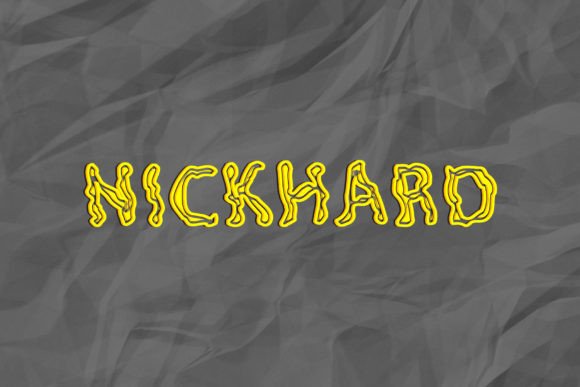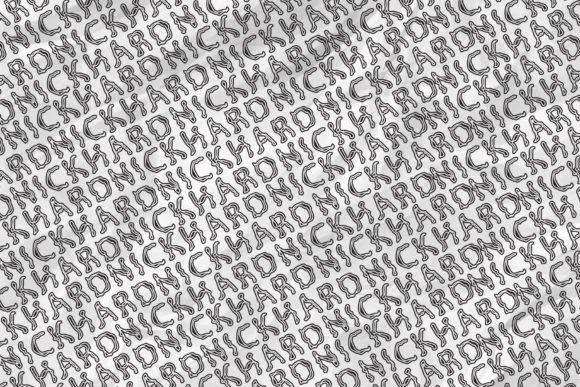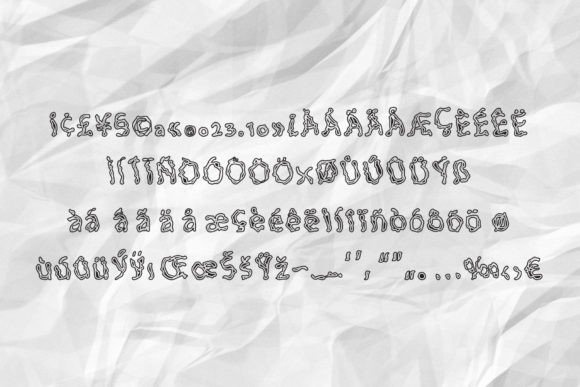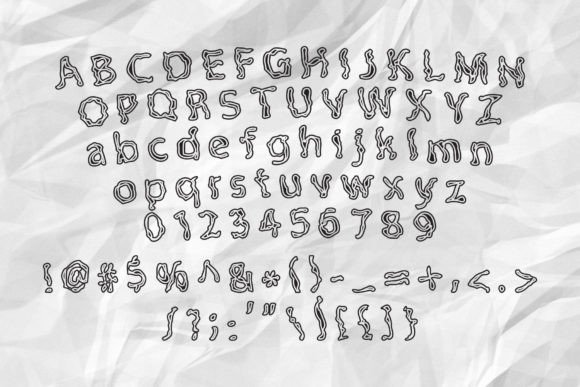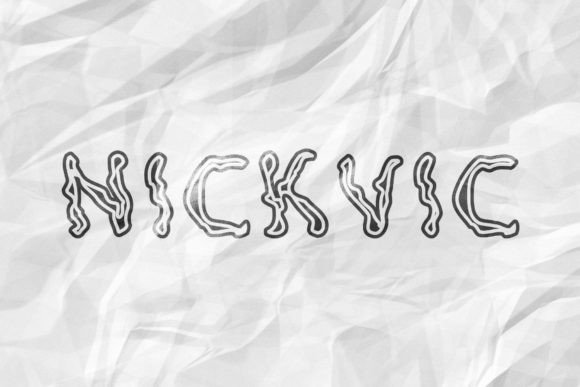
Introduction to Nickvic Font
Nickvic is a font that is both stylish and unique with its hand-drawn, artistic design.
Its fluid, flowing letterforms, and delicate strokes create a modern, yet sophisticated look that is perfect for branding, packaging, and editorial projects Ink Script is the perfect font to add a touch of individuality and creativity to any project.
Key Features of Nickvic Font